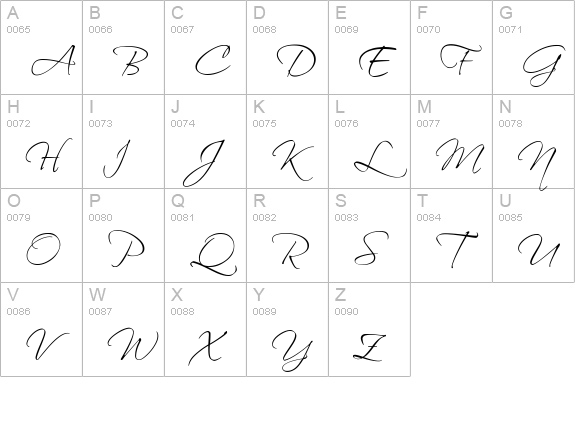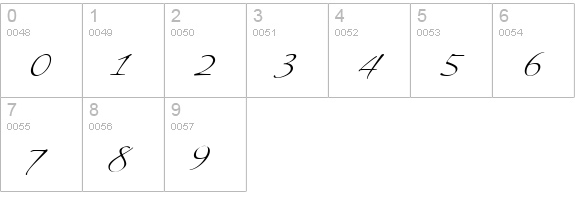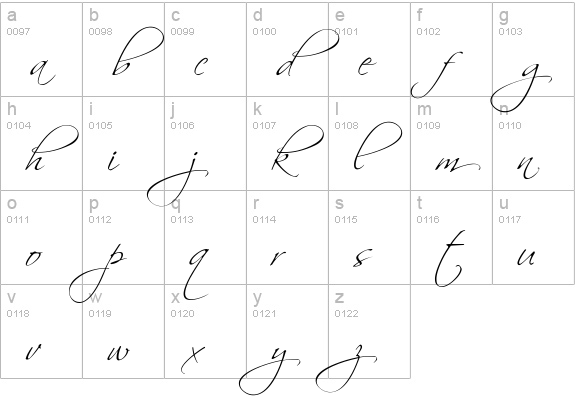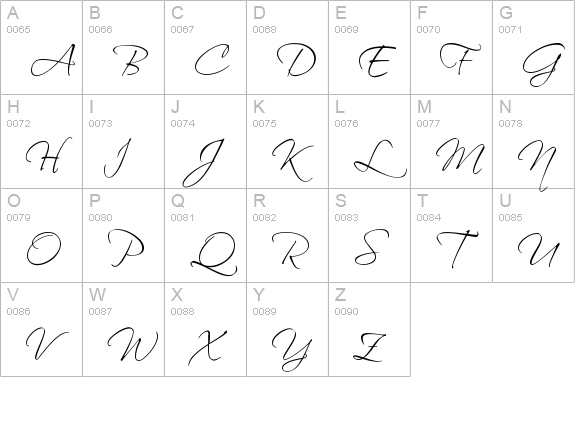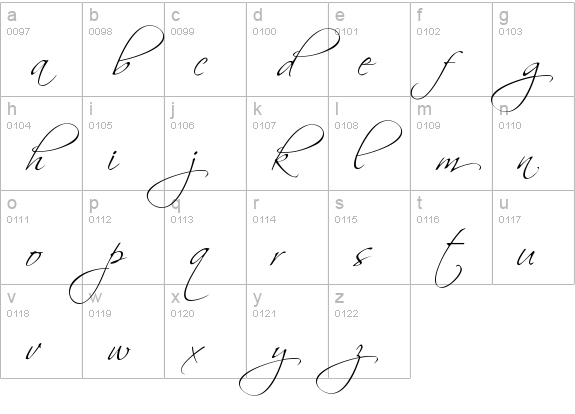
Scriptorama is a stunning and elegant font that captures the essence of graceful calligraphy. With its intricate loops and delicate curves, this font brings a sense of sophistication and timeless beauty to any design project. Designed with meticulous attention to detail, Scriptorama offers a wide range of uppercase and lowercase letters, as well as numbers, punctuation marks, and special characters. Its flowing strokes and graceful flourishes create a sense of movement and fluidity, making it perfect for wedding invitations, elegant branding, and luxurious packaging. But what sets Scriptorama apart is not just its exquisite design, but also its availability as a free font. That's right, you can now download this exceptional font for free at FontsMarket.com. Whether you're a professional designer or a DIY enthusiast, you can access the full potential of this font without any cost. Scriptorama's versatility is another standout feature. It effortlessly adapts to different styles and contexts, whether you're looking for a romantic and whimsical feel or a sophisticated and refined look. Its timeless appeal makes it suitable for a wide range of projects, from greeting cards and logos to websites and social media posts. In addition to its aesthetic appeal, Scriptorama also offers practicality. Its legibility ensures that your message is conveyed clearly, while its OpenType features provide added flexibility and creative possibilities. So why wait? Embrace the beauty and elegance of Scriptorama font today. Download it for free at FontsMarket.com and unlock a world of design possibilities. Whether you're creating stunning wedding stationery, captivating advertisements, or breathtaking branding, Scriptorama will elevate your work to new heights.